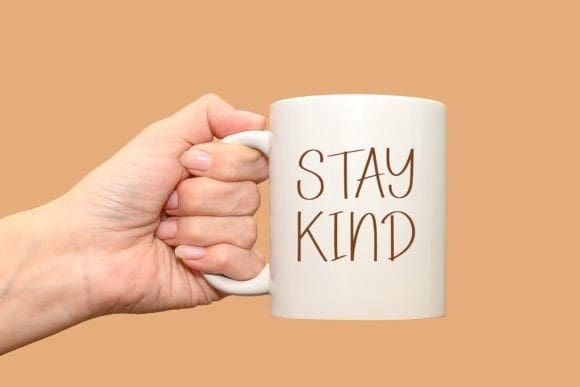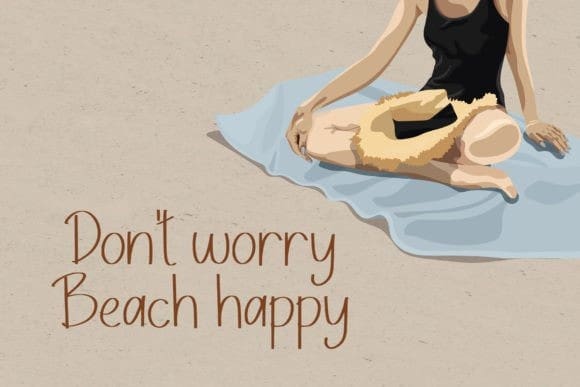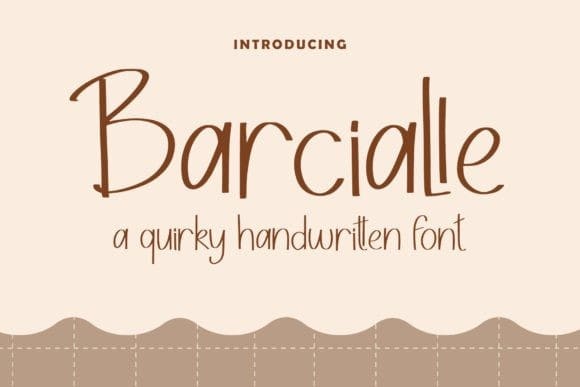
Barcialle Hand Font
Barcialle Hand Font is a quirky handwritten font. This gentle font will look gorgeous on a variety of design ideas. It will add a joyful and romantic touch to each of your projects! Perfectly fit for headlines, posters, covers, crafting projects, and many more!